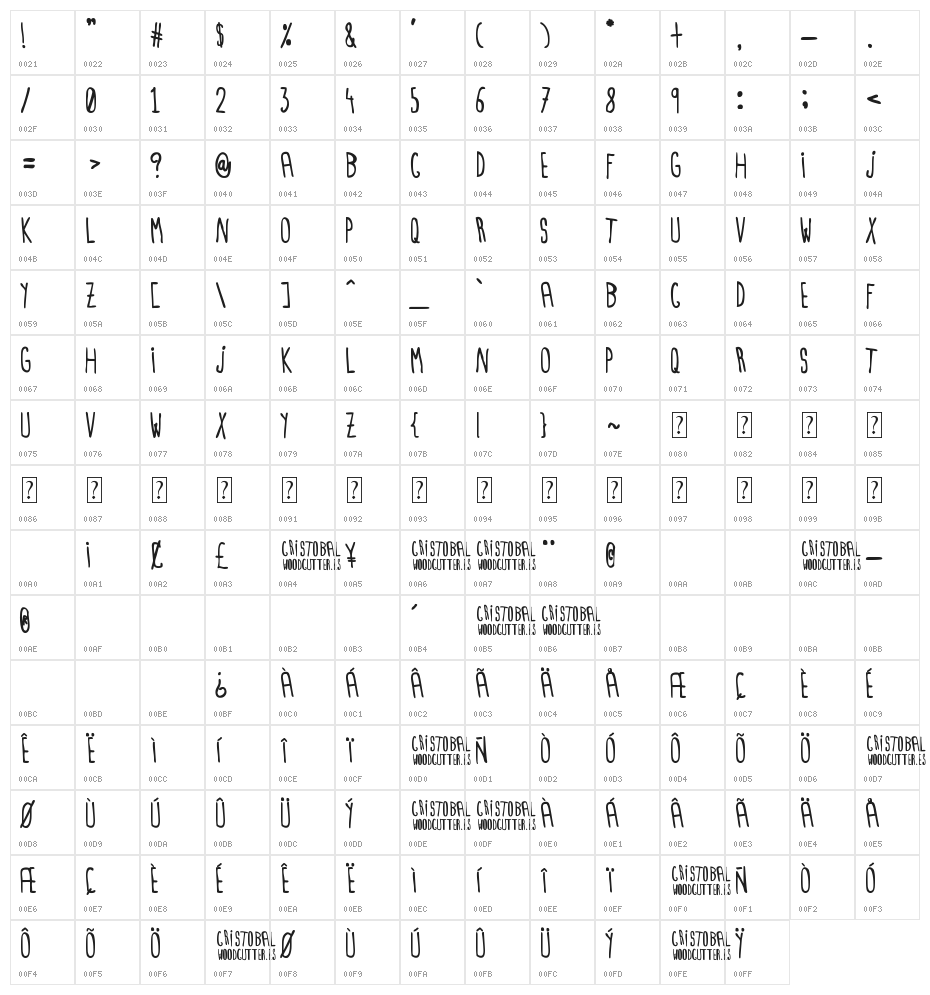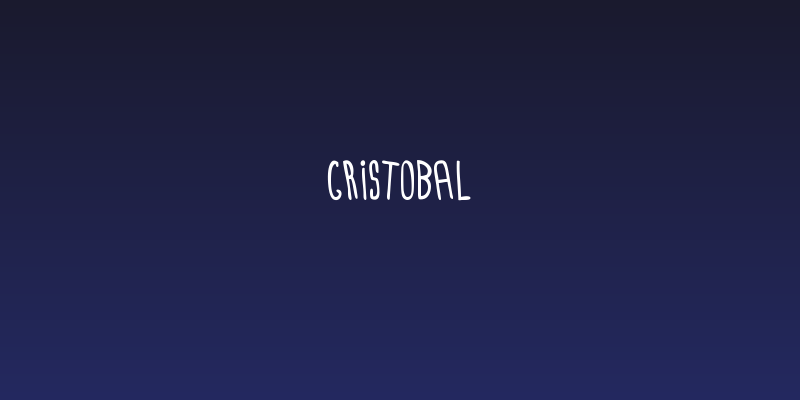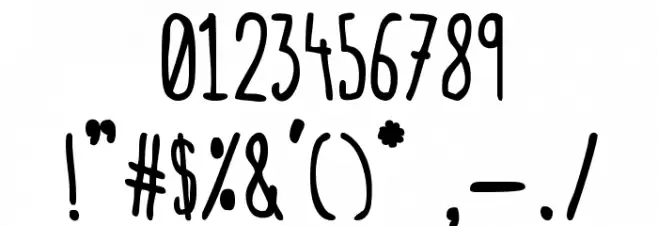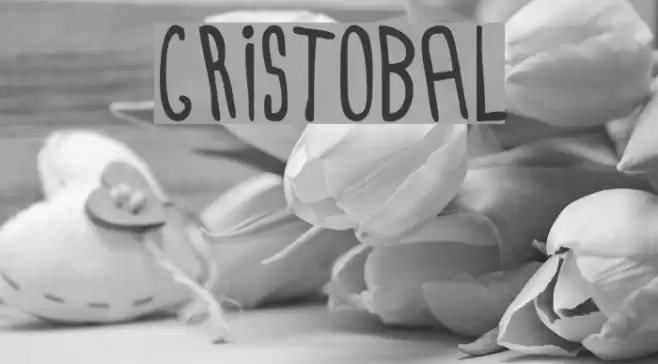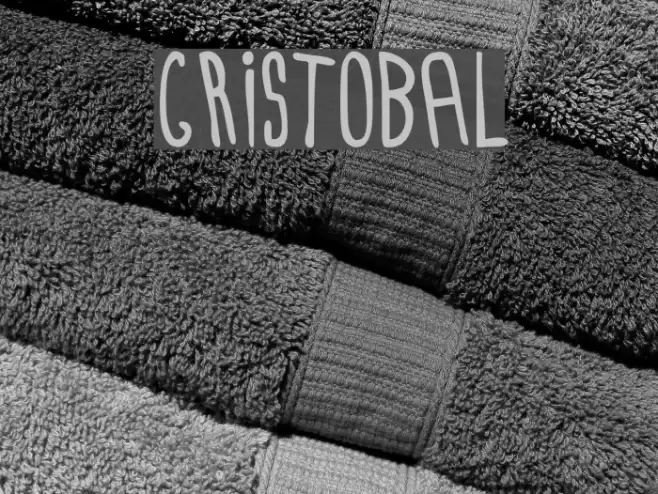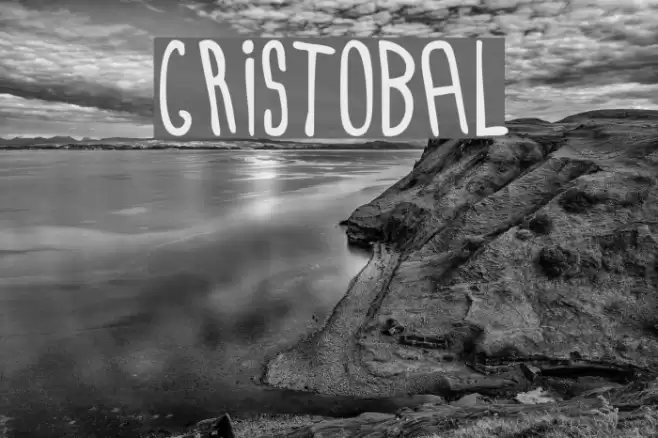
Cristobal Font
Cristobal Description
This font features a playful and informal handwritten style, characterized by its uneven strokes and slightly irregular letterforms. The uppercase and lowercase letters maintain a consistent height, giving it a cohesive appearance. The numbers and special characters follow the same whimsical design, making it suitable for projects that require a casual and friendly tone. The font's organic feel is enhanced by its slightly wavy lines, which add a touch of personality and warmth. It's ideal for creative projects where a relaxed and approachable aesthetic is desired.
| Proposed Projects | Greeting cards, children's books, casual posters, and social media graphics. |